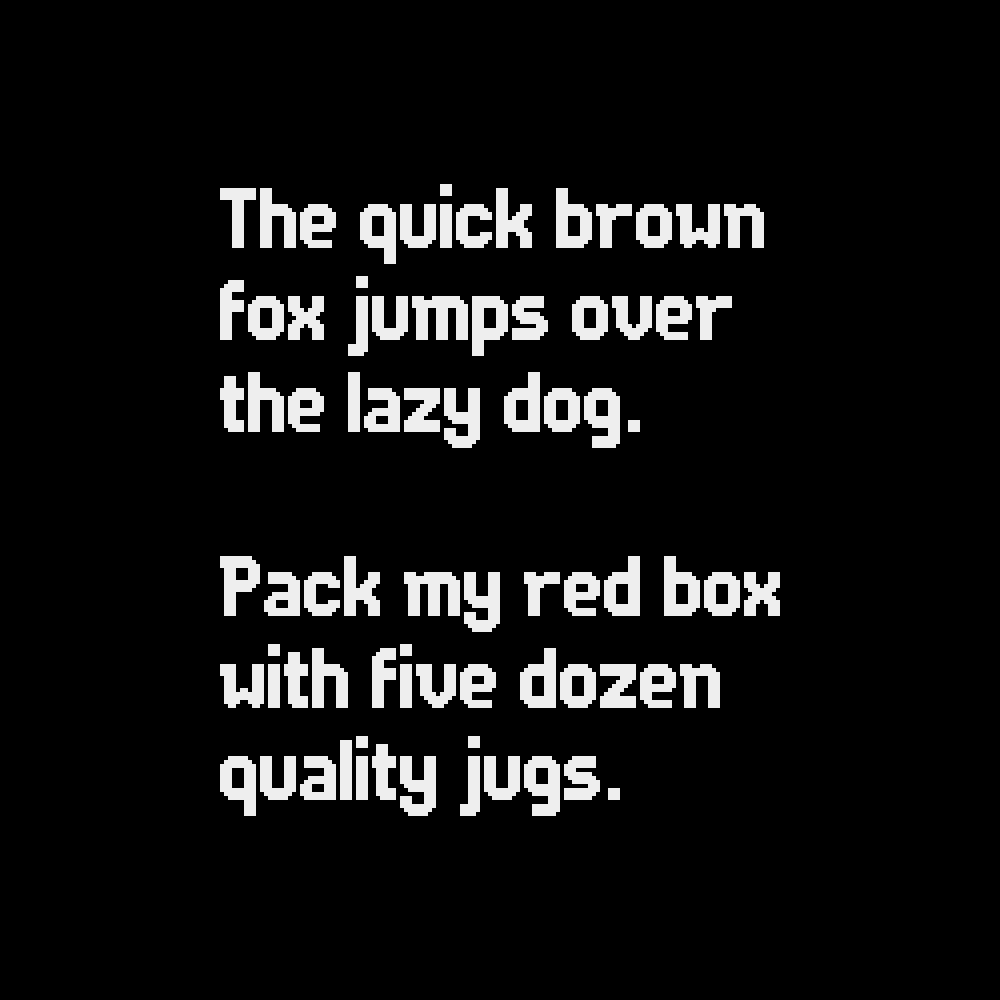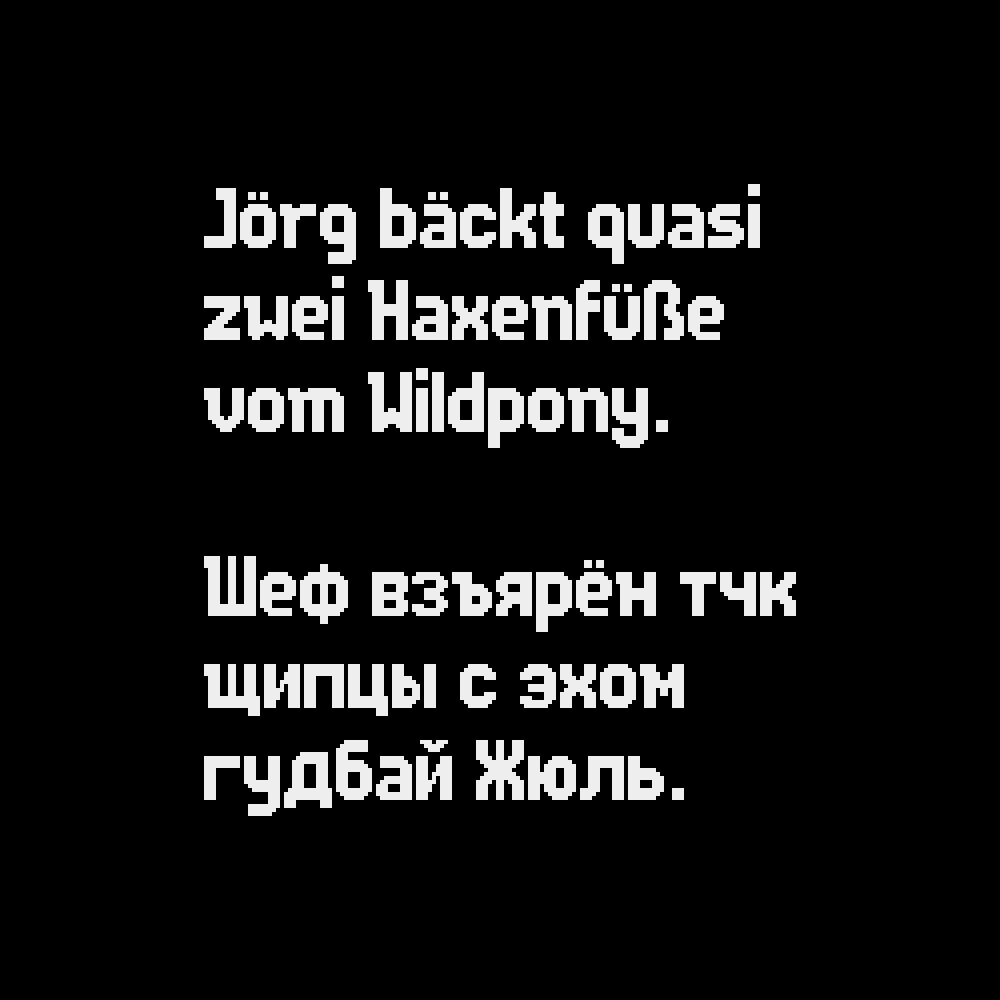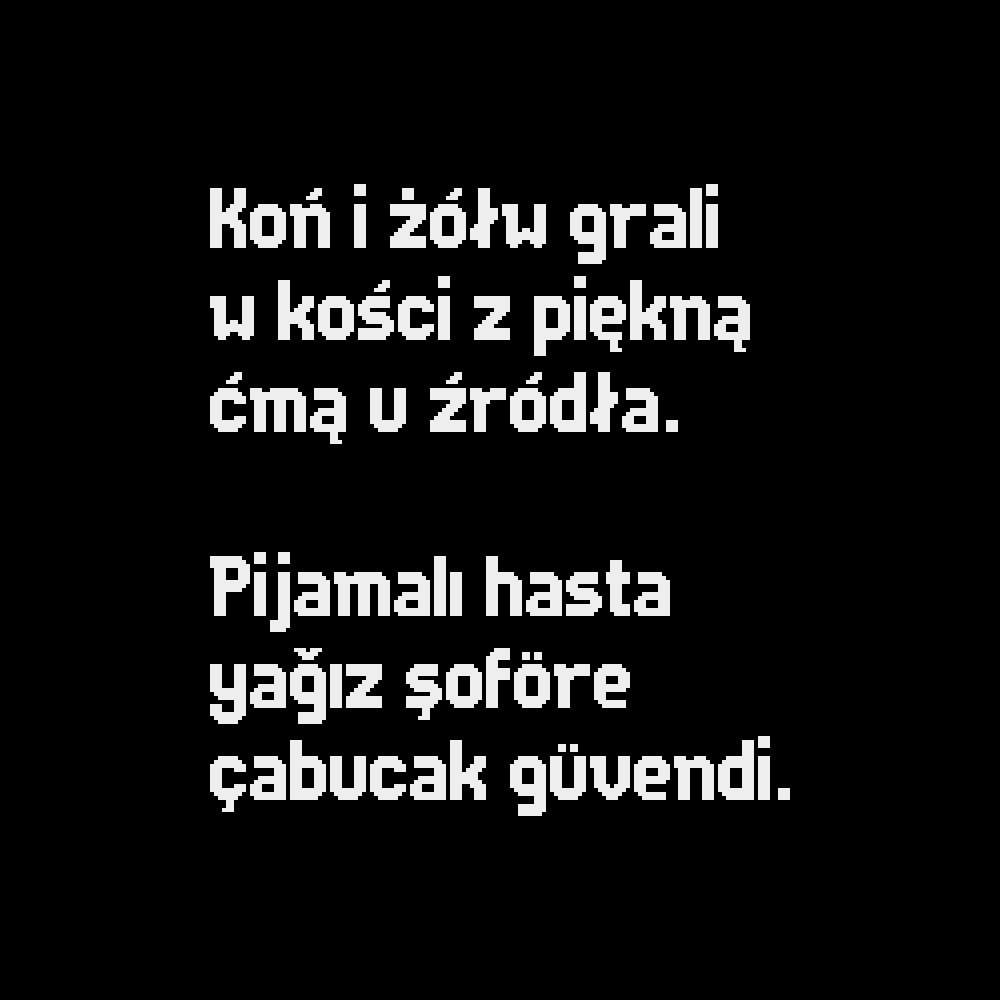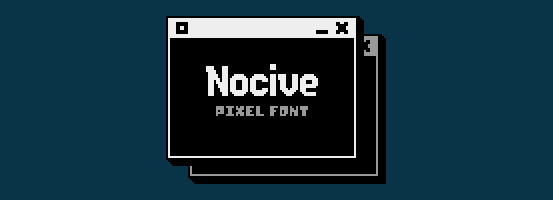
A downloadable pixel font
Nocive is a large, distinguished, bold, 15px tall pixel font!
Full Character Set:
ABCDEFGHIJKLMNOPQRSTUVWXYZ abcdefghijklmnopqrstuvwxyz 0123456789.,;:?!"'+-=*%_() []{}~#&@©®™°^`|/\<>…€$£¢¿¡“”‘’«»‹›„‚·• ÀÁÂÄÃÅĄÆÇĆÐÈÉÊËĘĞÌÍÎÏİŁÑŃÒÓÔÖÕŐØŒŚŞẞÞÙÚÛÜŰÝŸŹŻàáâäãåąæçćðèéêëęğìíîïıłñńòóôöõőøœśşßþùúûüűýÿźżАБВГҐДЕЁЄЖЗИІЇЙКЛМНОПРСТУФХЦЧШЩЪЫЬЭЮЯабвгґдеёєжзиіїйклмнопрстуфхцчшщъыьэюя
Supported languages:
English, French, Italian, German, Spanish, Portuguese, Danish, Swedish, Norwegian, Icelandic, Hungarian, Polish, Turkish, Russian, Ukrainian…
How do these scale? Like if you use small>mid>large UI?
Hey! The cap height of this font is 15px. This means that if you use it, say, at 2x scale it will be 30px tall. I strongly recommend to avoid upscaling it at uneven sizes or it won't look crisp.
This font is awesome! Would love to see Chinese characters support one day :)
Thanks! Eh, that would require tens of thousands of characters. But who knows, maybe one day!
Your pixel fonts are all awesome, but my game is localized and simplified Chinese :(  so I haven't been able to use one fully yet.
In this case, you could use a dedicated font to cover Asian languages only and keep one of my designs for the rest. 😉
Exactly how it is done in most games that support multi language